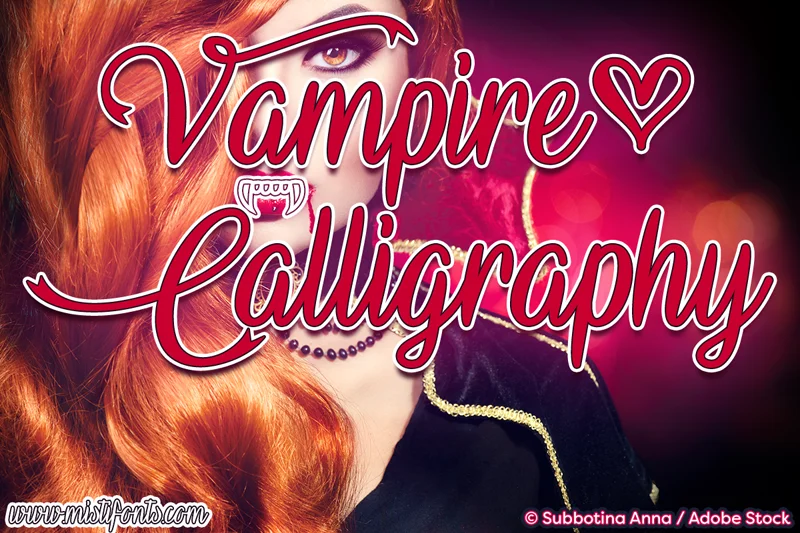
Vampire Calligraphy
About the Vampire Calligraphy Font
Vampire Calligraphy is a fangtastic, calligraphy font that is perfect for your design and craft projects!
Special Symbols:
Type * (asterisk) for the heart
Type _ (underscore) for the fangs